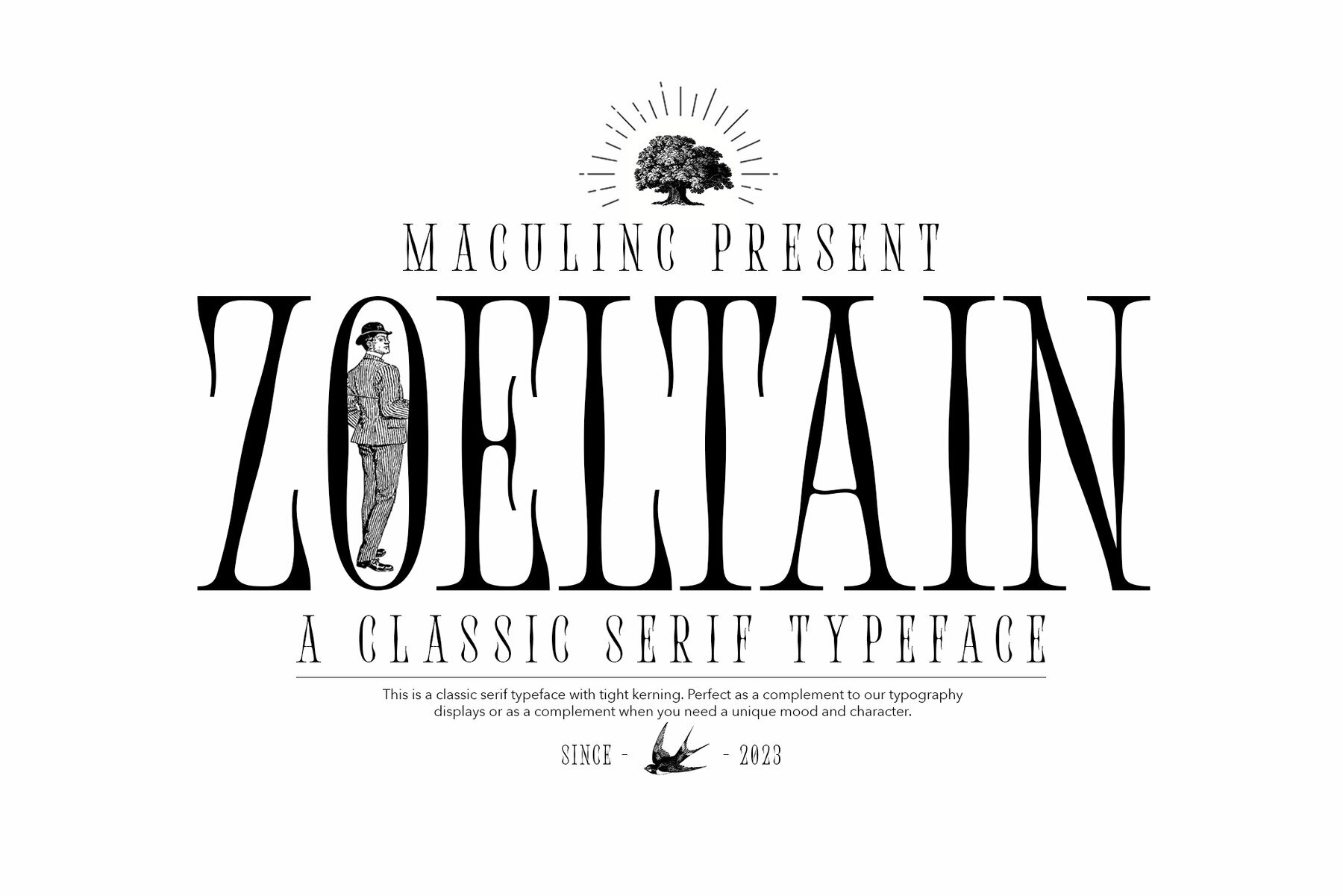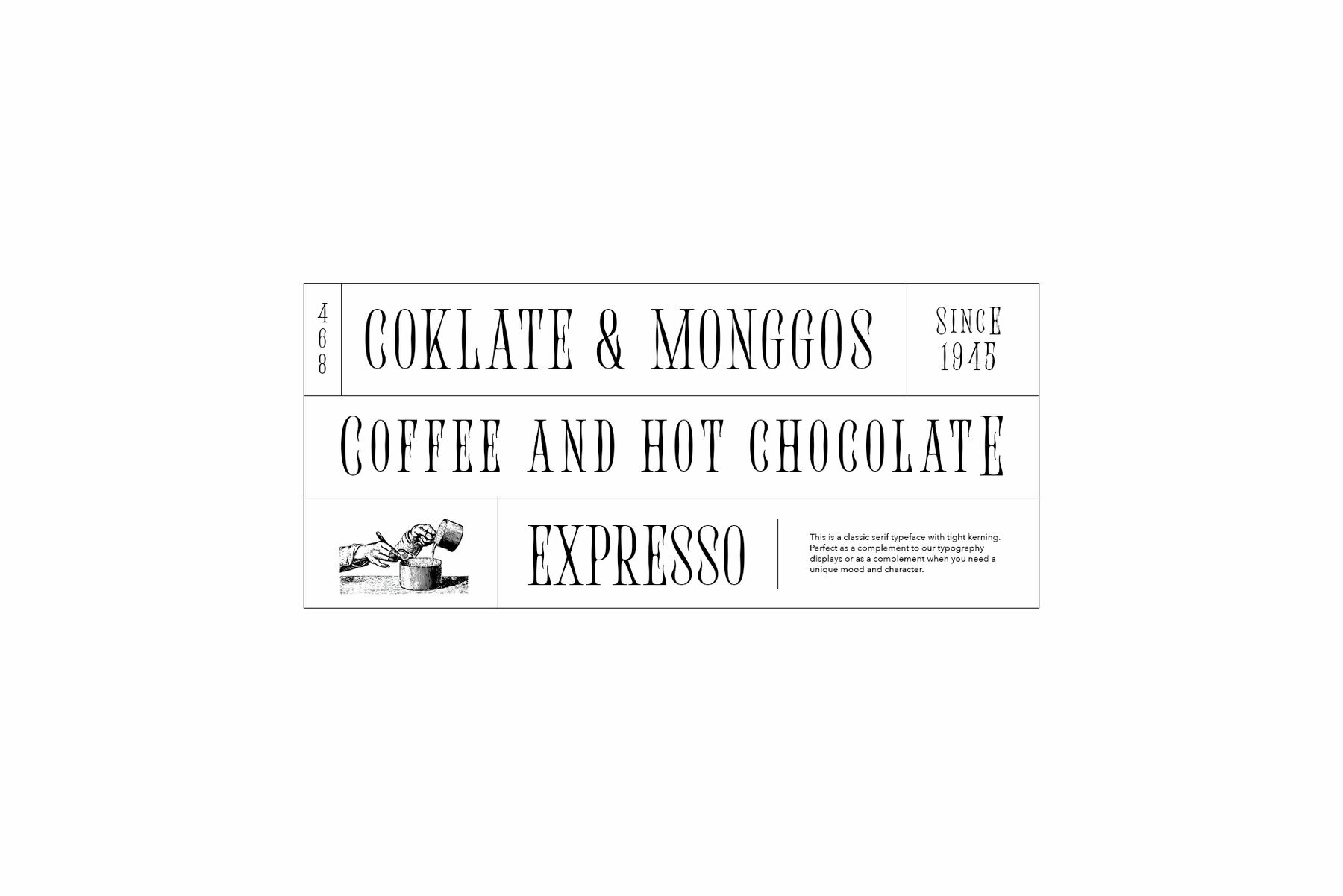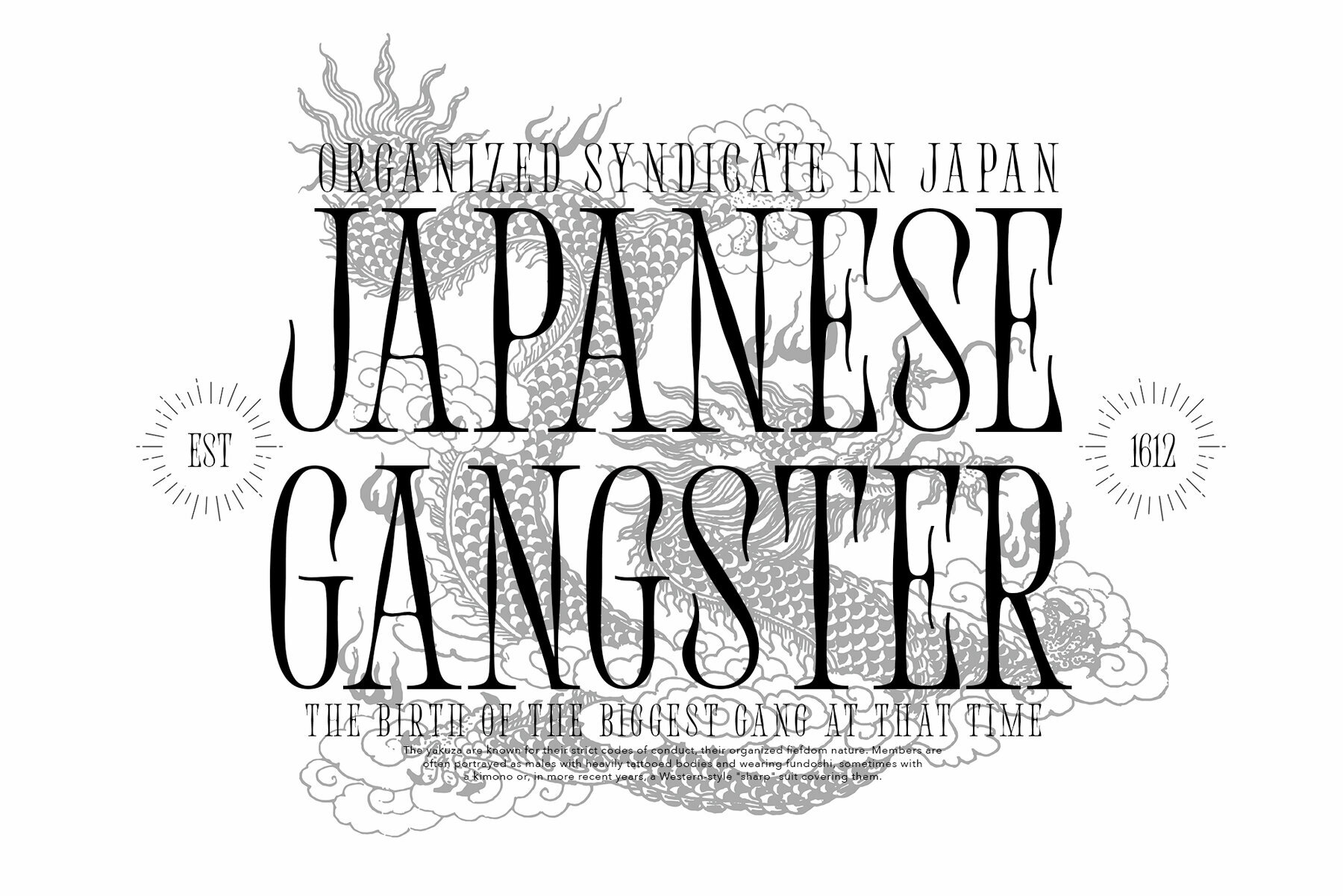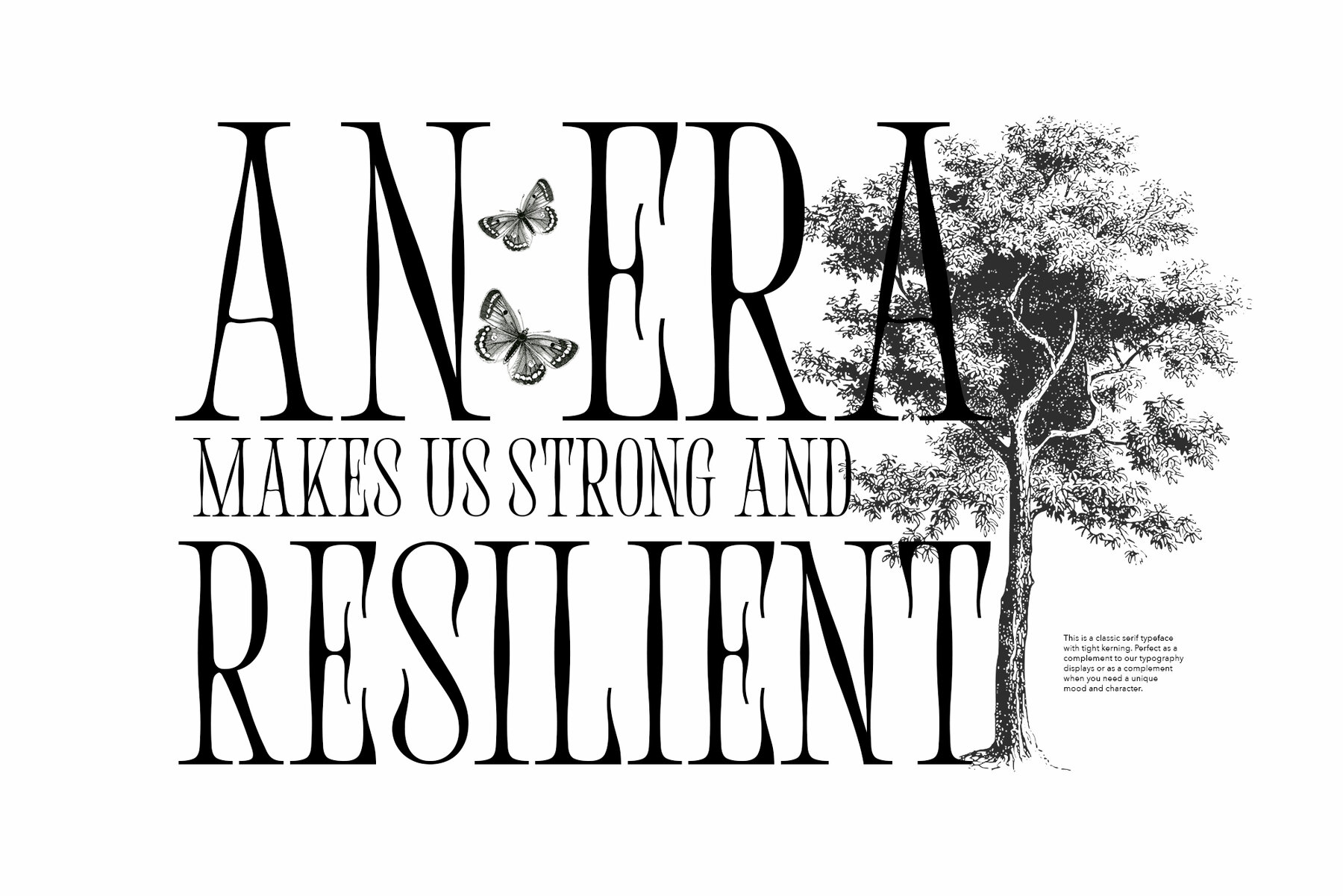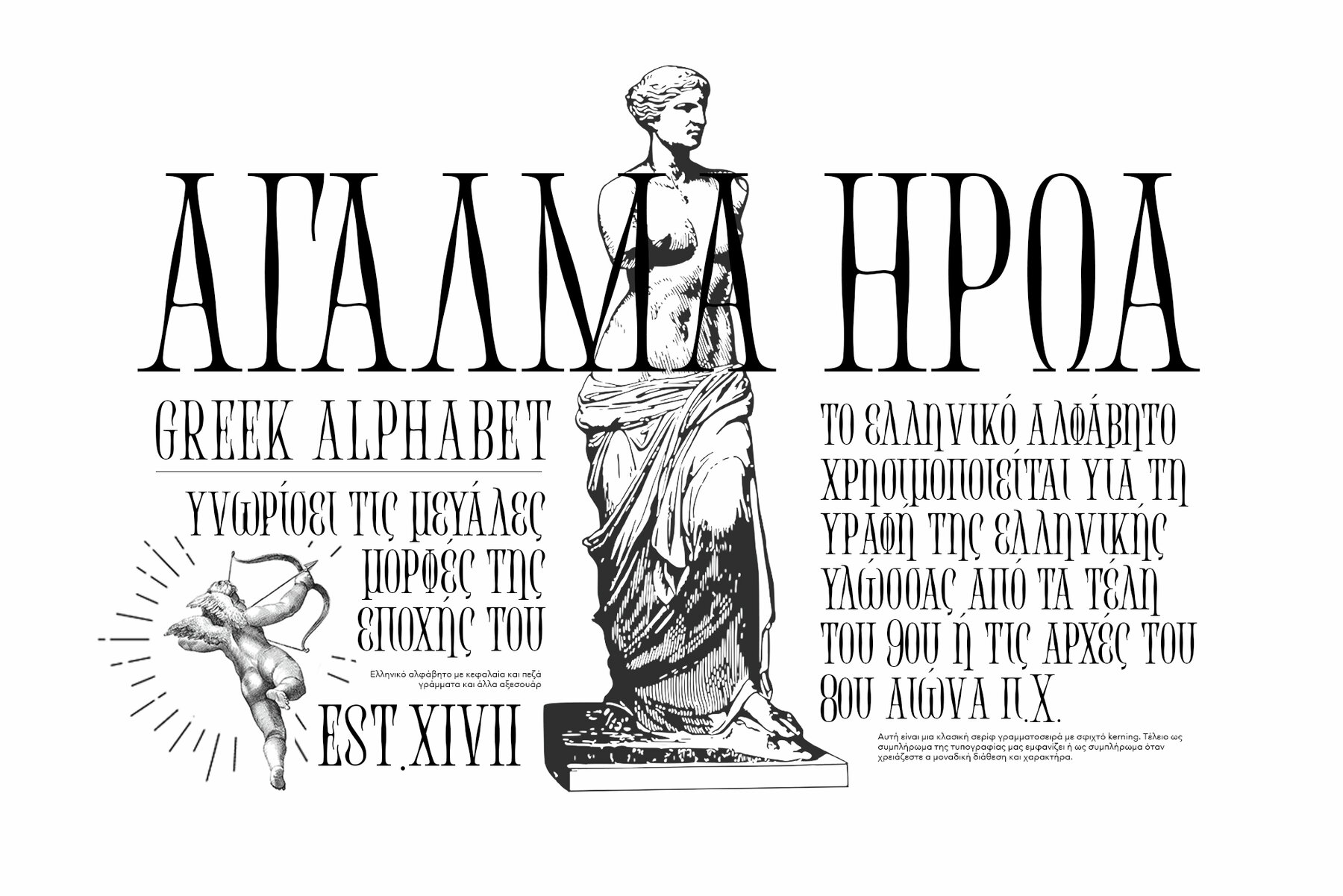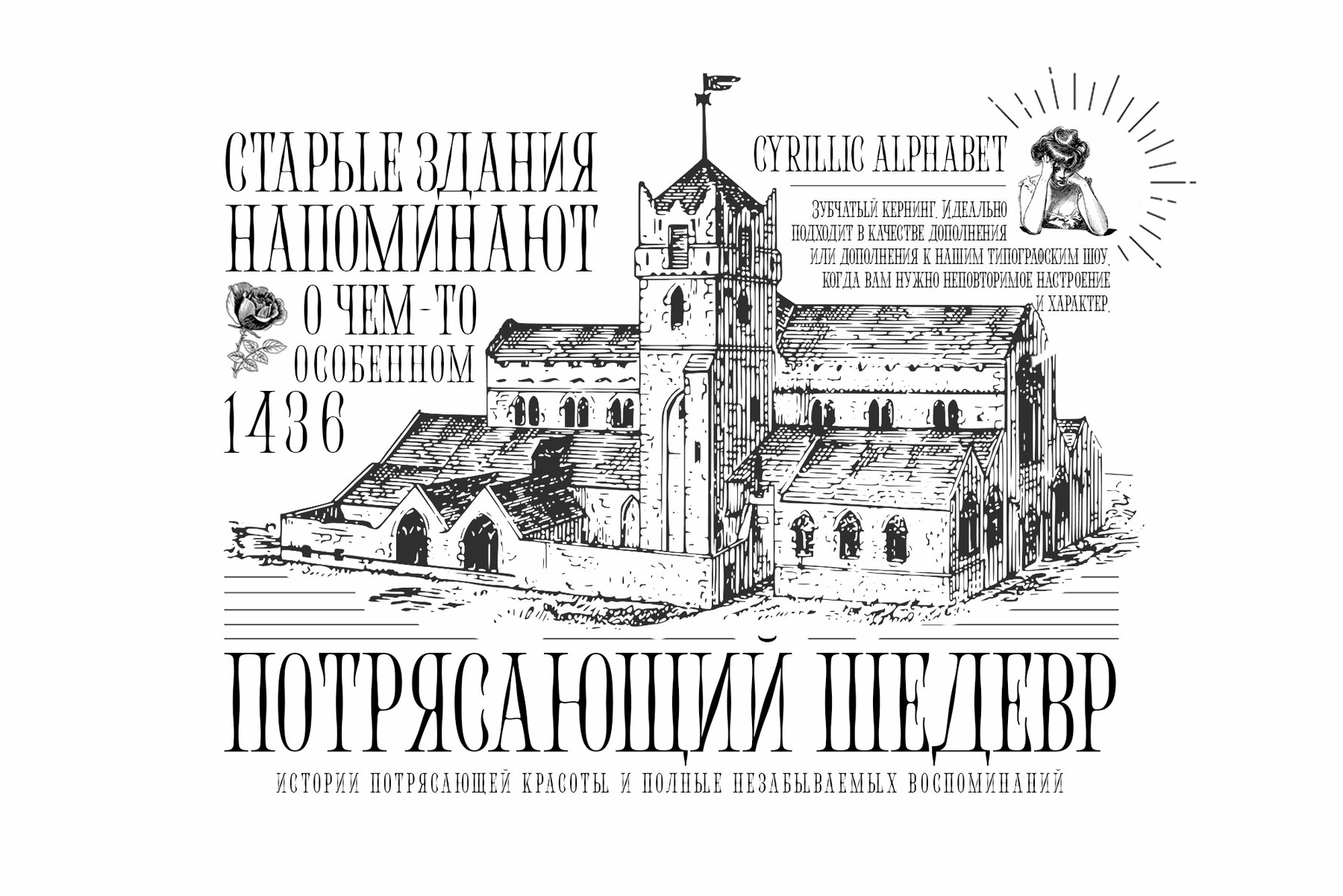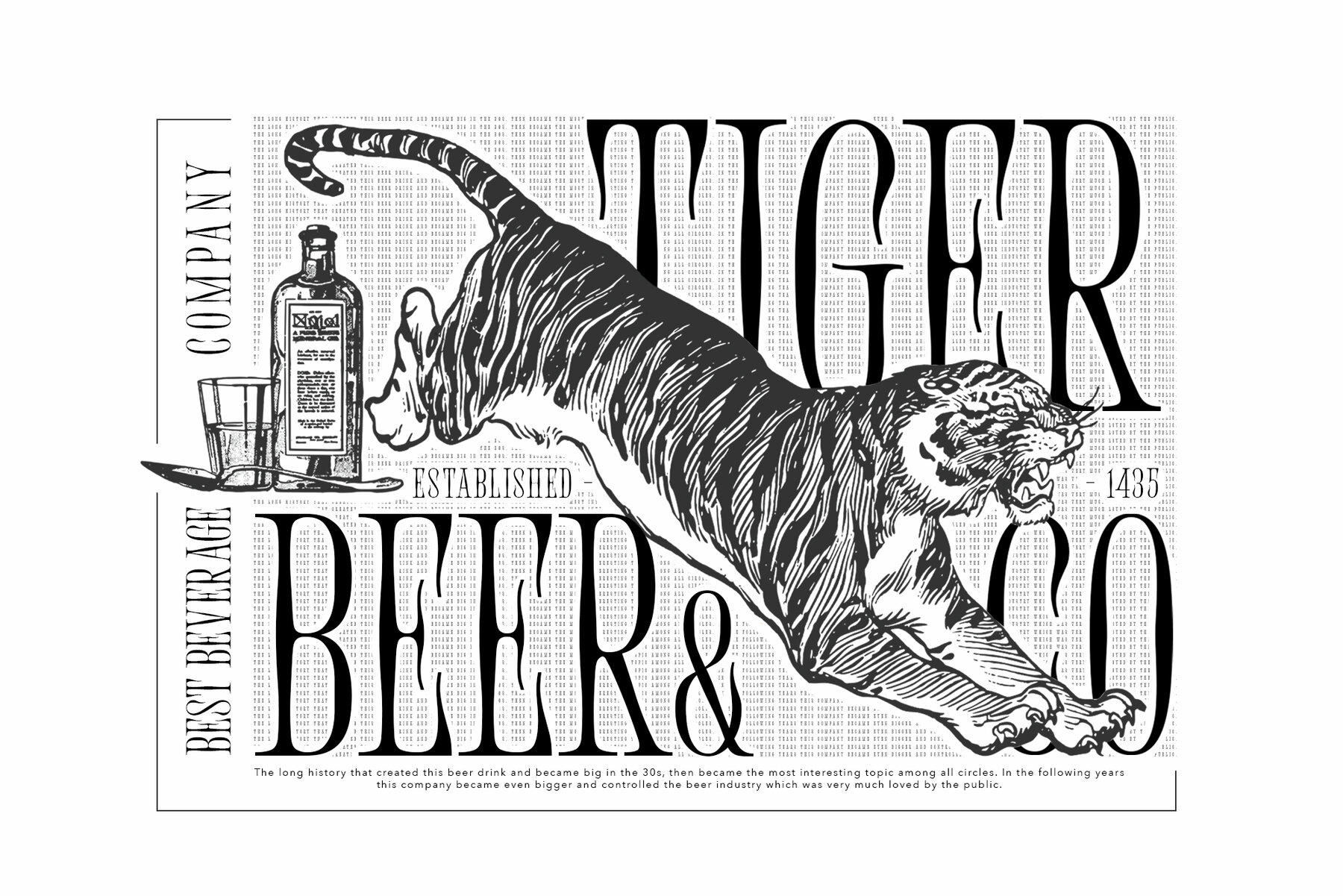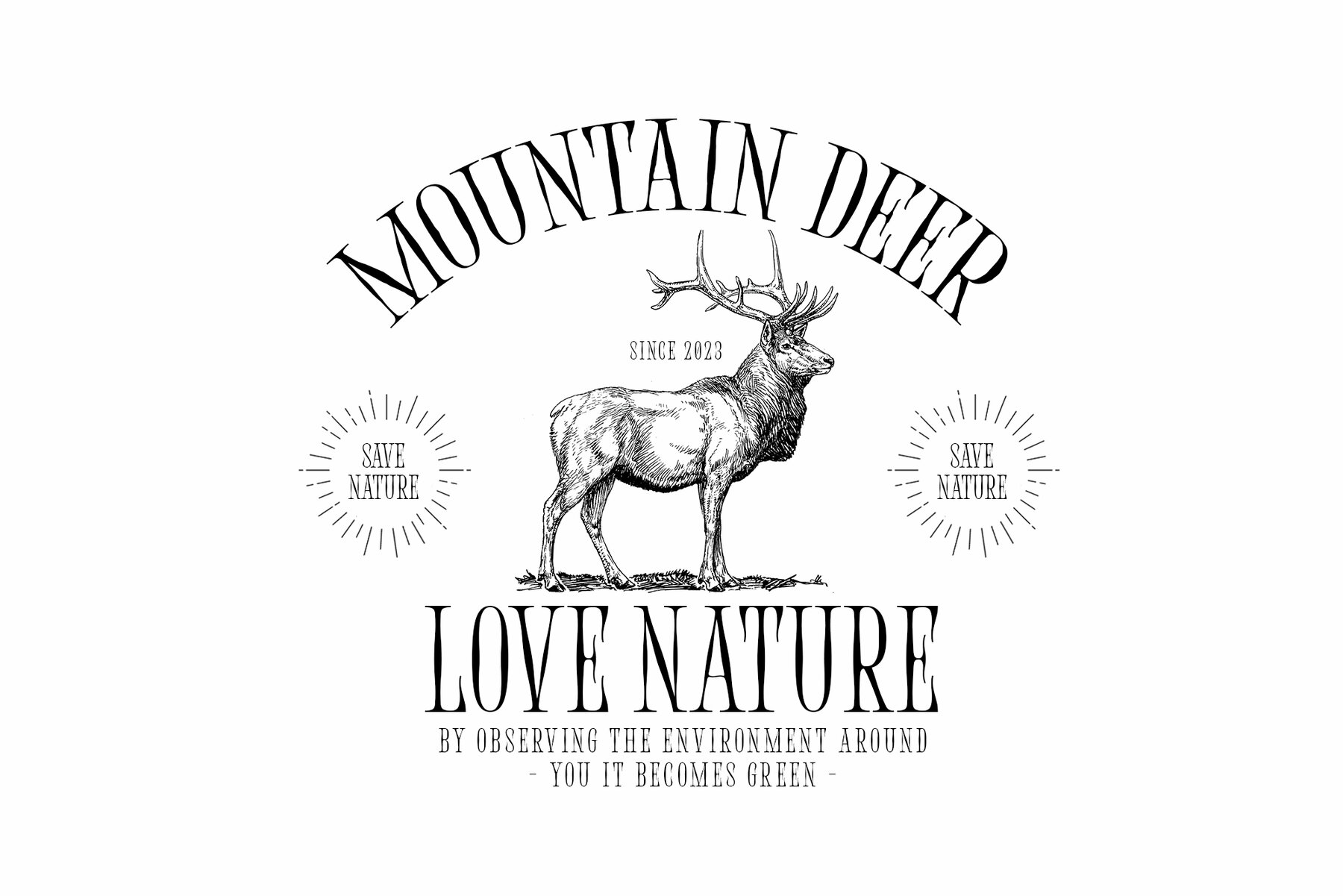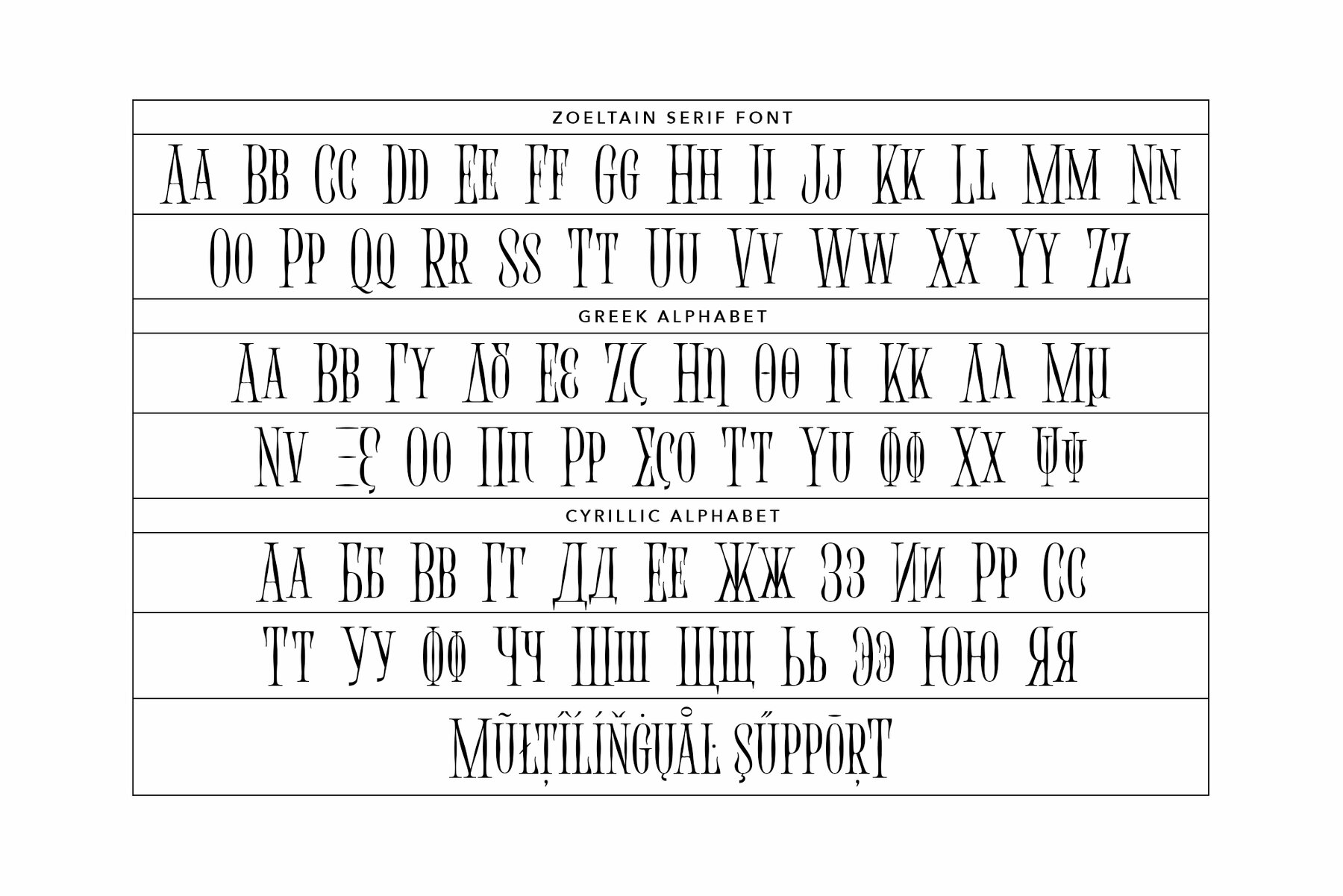
Zoeltain Font
Zoeltain Regular
Zoeltain offers a traditional serif style that features tight kerning, making it ideal for typography displays. It brings a unique mood and character, perfectly complementing designs that evoke vintage, retro, and similar themes.Zoeltain: Classic Serif Typeface with Tight Kerning